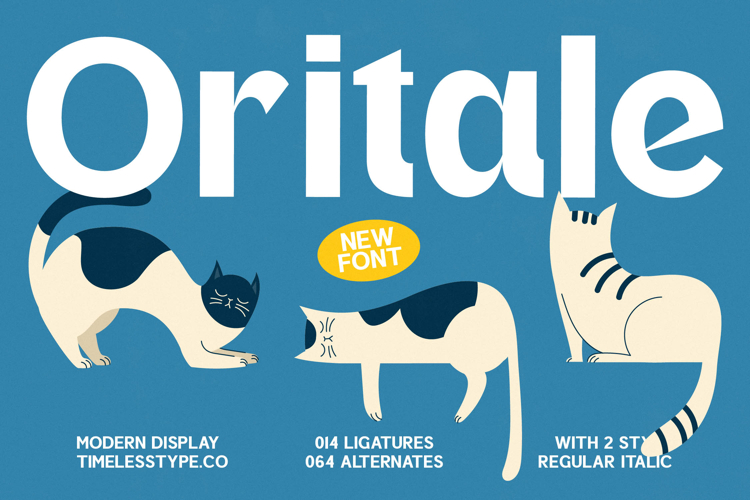
Oritale - Modern Display Font
Font Oritale - Modern Display Font Sans Serif emerges as a truly captivating typeface, meticulously designed to command attention with its distinctive, contemporary aesthetic. Its clean lines and harmoniously balanced curves convey a sense of sophisticated simplicity, making it an immediate visual draw. This font is engineered to deliver clarity and impact, ensuring your message is not just seen, but felt and remembered, embodying modern elegance for any display application.
Unleash unparalleled creative potential with the integrated features of Font Oritale - Modern Display Font Sans Serif. Boasting an impressive collection of 014 ligatures and 064 alternates, this typeface offers profound customization, allowing designers to craft truly unique and expressive typographic compositions. This extensive character set provides the flexibility needed for innovative design and personalized branding, transforming ordinary text into extraordinary visual statements.
Experience unparalleled reach and adaptability with Font Oritale - Modern Display Font Sans Serif. With its extensive multilingual support, Font Oritale - Modern Display Font Sans Serif adapts seamlessly across global markets, making it incredibly versatile for international projects. This global compatibility ensures that your designs resonate authentically, maintaining their inherent professional appeal and brand integrity regardless of language barriers, perfect for international campaigns.